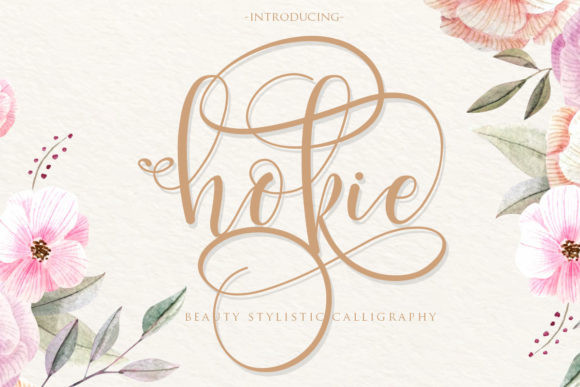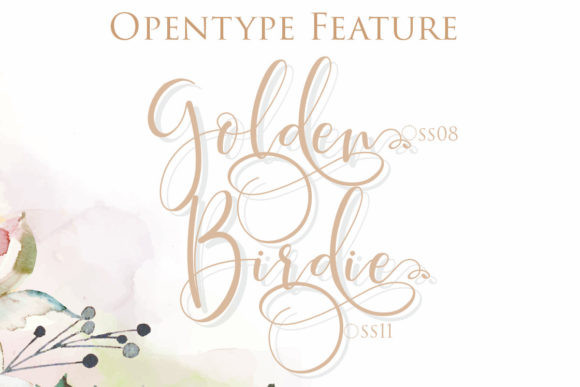
Hokie Font
Hokie is a gorgeous, unique and fancy calligraphy font that will turn any design project into a true standout. Get inspired by its unique style!